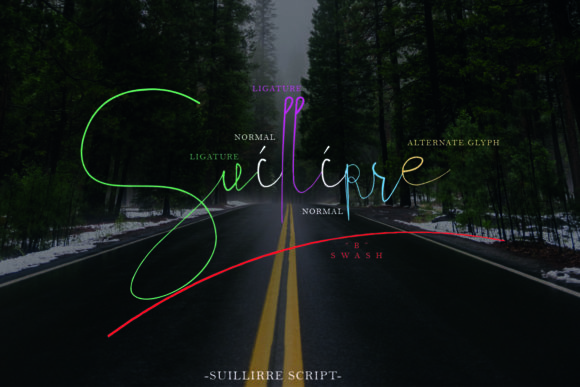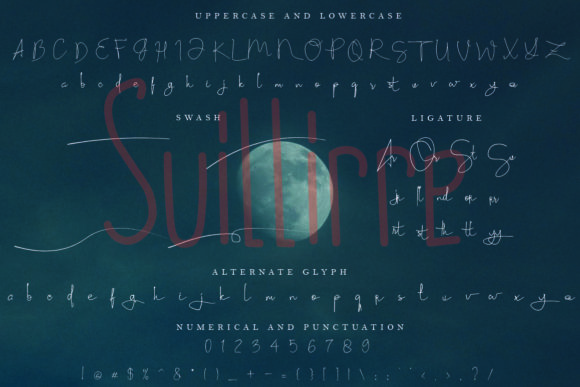
Suillirre Font
About Suillirre Font
The Suillirre is a modern handwritten typeface. It includes amazing swashes which you can use to add an awesome feel to your design.
It’s perfect for logos, t-shirts, posters, apparel, magazines, signs, advertising, and every other design which needs a handwritten feel.